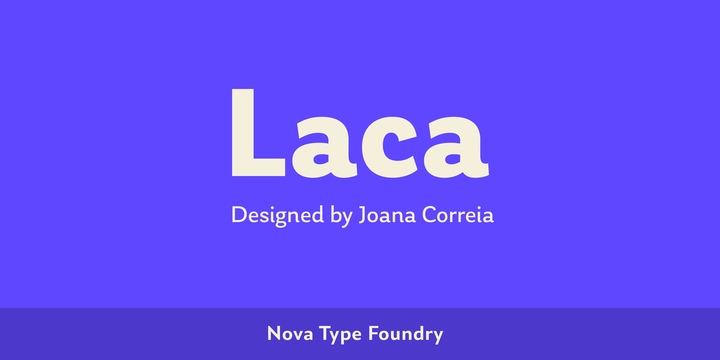
Laca Font
Laca Font is perfect for modern corporate branding, sleek tech company logos, contemporary web design, professional business communications, minimalist product packaging, sophisticated signage systems, clean editorial layouts, progressive marketing materials, refined digital interfaces, and versatile brand identity systems.
Laca Font is exciting because it perfectly captures the essence of contemporary design precision and professional sophistication, creating a typeface that embodies clarity, functionality, and the refined aesthetics of modern business communication. This font brings contemporary elegance and professional reliability to any project, making it ideal for organizations that want to convey competence, innovation, and the clean efficiency that defines successful modern enterprises. Its refined character and professional appeal create an atmosphere of business confidence that resonates with professional audiences across diverse industries.
Laca Font family includes thin, light, regular, medium, bold, and black weights, each available in roman and italic styles with comprehensive character support and professional symbols, providing designers with extensive flexibility for creating sophisticated typography and comprehensive corporate brand systems.
This exceptional contemporary typeface combines modern design principles with practical functionality, making Laca Font Free Download an outstanding choice for projects requiring both visual sophistication and professional reliability. The font's precisely crafted letterforms feature balanced proportions and contemporary styling that ensure excellent performance across all business applications while maintaining distinctive character and professional appeal.
Whether you're developing corporate identity systems, designing professional presentations, or creating sophisticated digital platforms, Laca Font delivers remarkable versatility and contemporary professionalism. The font maintains excellent legibility across all media, making it ideal for comprehensive brand systems that require consistency and professional credibility.
Business professionals choose Laca Font for its ability to project competence and reliability while providing the clean aesthetics essential for modern corporate communication. The font's contemporary character makes it particularly suitable for consulting firms, technology companies, and progressive businesses targeting professional audiences.
Each character demonstrates thoughtful attention to proportion and professional functionality, featuring the clean precision and reliable performance that defines today's most successful corporate brands and professional communication systems.